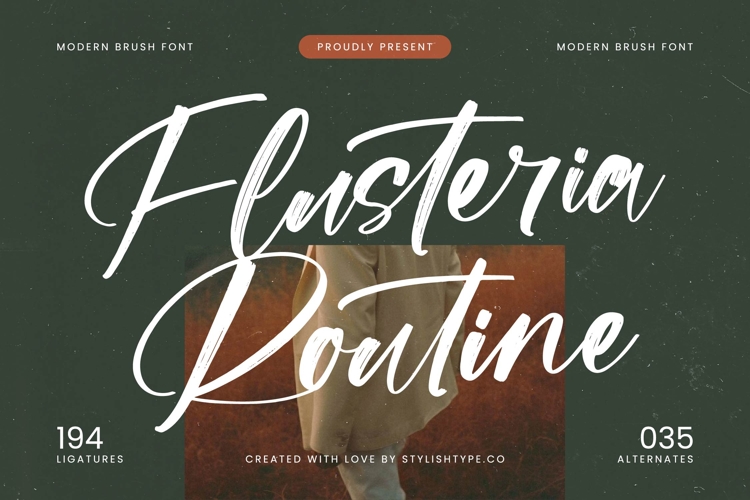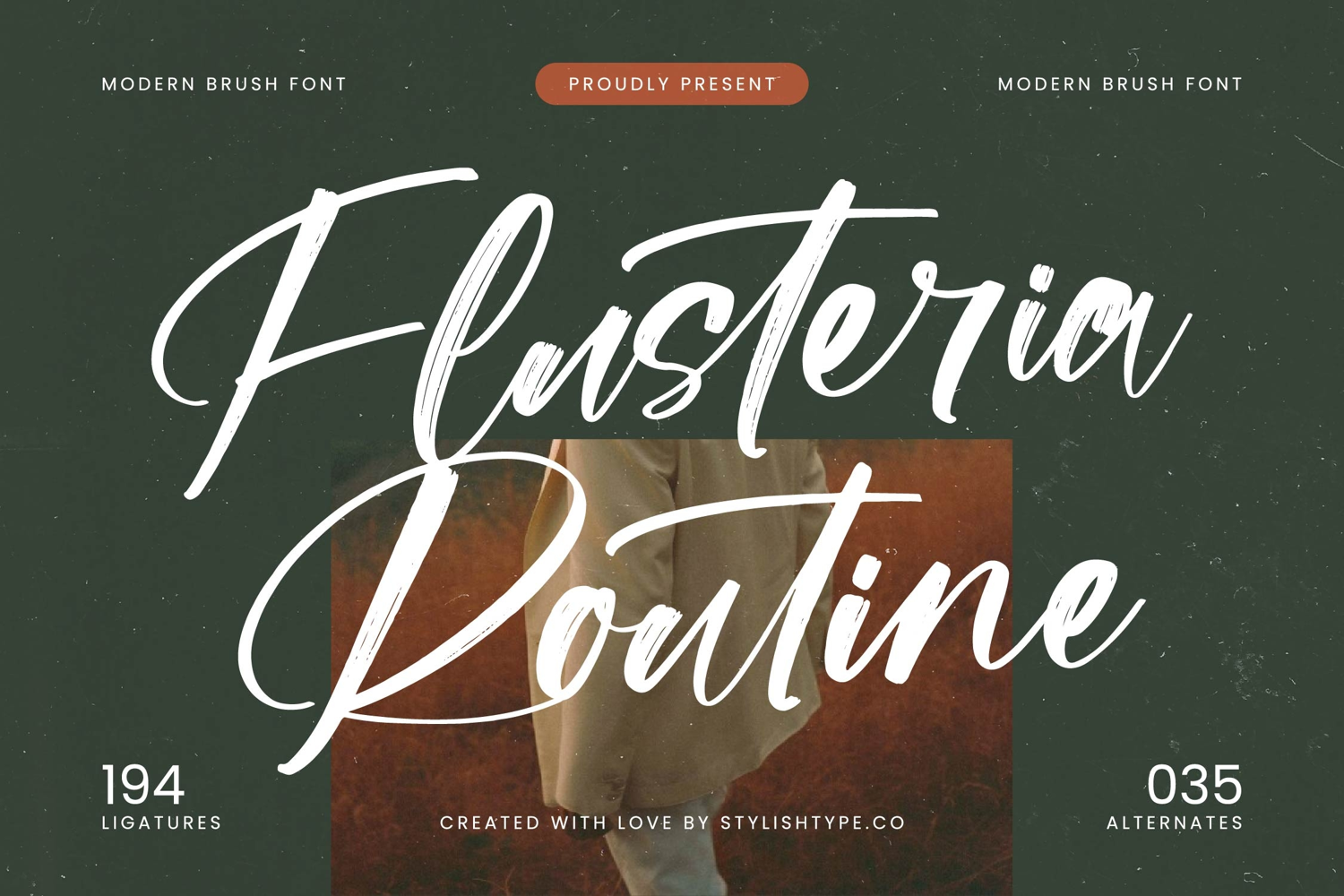
Flusteria Routine - Modern Brush Font
Elevate your design projects with authentic handcrafted charm. Introducing Font Flusteria Routine - Modern Brush Font Script, a truly captivating typeface that effortlessly blends the raw energy of brush strokes with a polished, contemporary aesthetic. Its organic flow and dynamic rhythm create a feeling of warmth and personality, making every word resonate with expressive elegance and modern sophistication.
Unleash unparalleled creative flexibility with its rich character set. Featuring an impressive 194 ligatures and 35 alternates, Font Flusteria Routine - Modern Brush Font Script ensures your text achieves seamless connectivity and natural variation. This extensive array of stylistic choices empowers designers to craft truly unique and distinctive typographic designs that avoid repetition and enhance visual appeal.
Go global with confidence and style. With its extensive multilingual support, Font Flusteria Routine - Modern Brush Font Script adapts seamlessly across global markets, making it incredibly versatile for international projects. This feature ensures your message retains its impact and sophisticated appeal regardless of the language, broadening your reach and enhancing brand consistency worldwide.